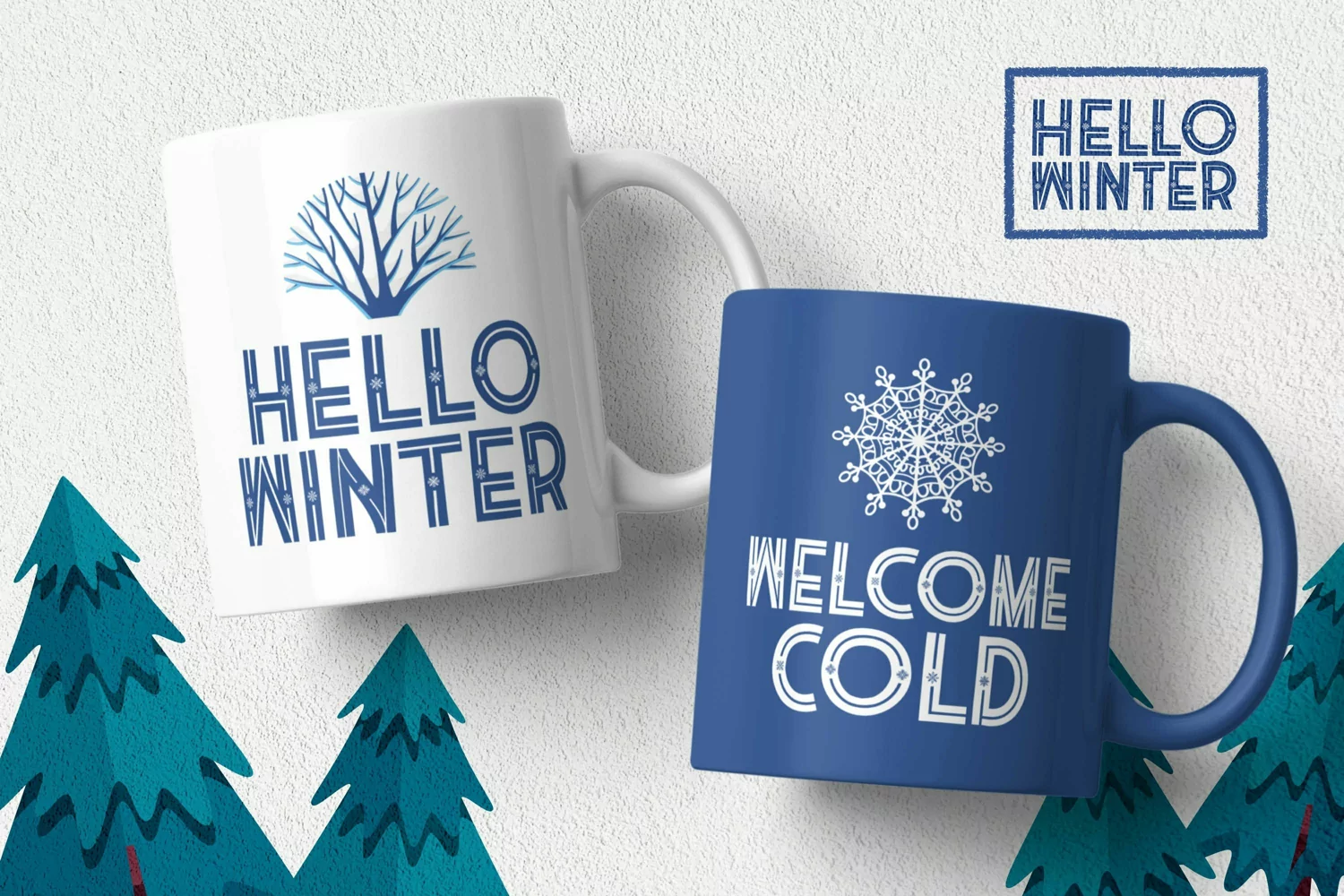
Web Font suitable for logotype, brand, packaging, quotes, music poster, t-shirt, cover book and more custom design. The features uppercase, lowercase, numeral, punctuation & symbol, multilingual support.
TheWinterRegular